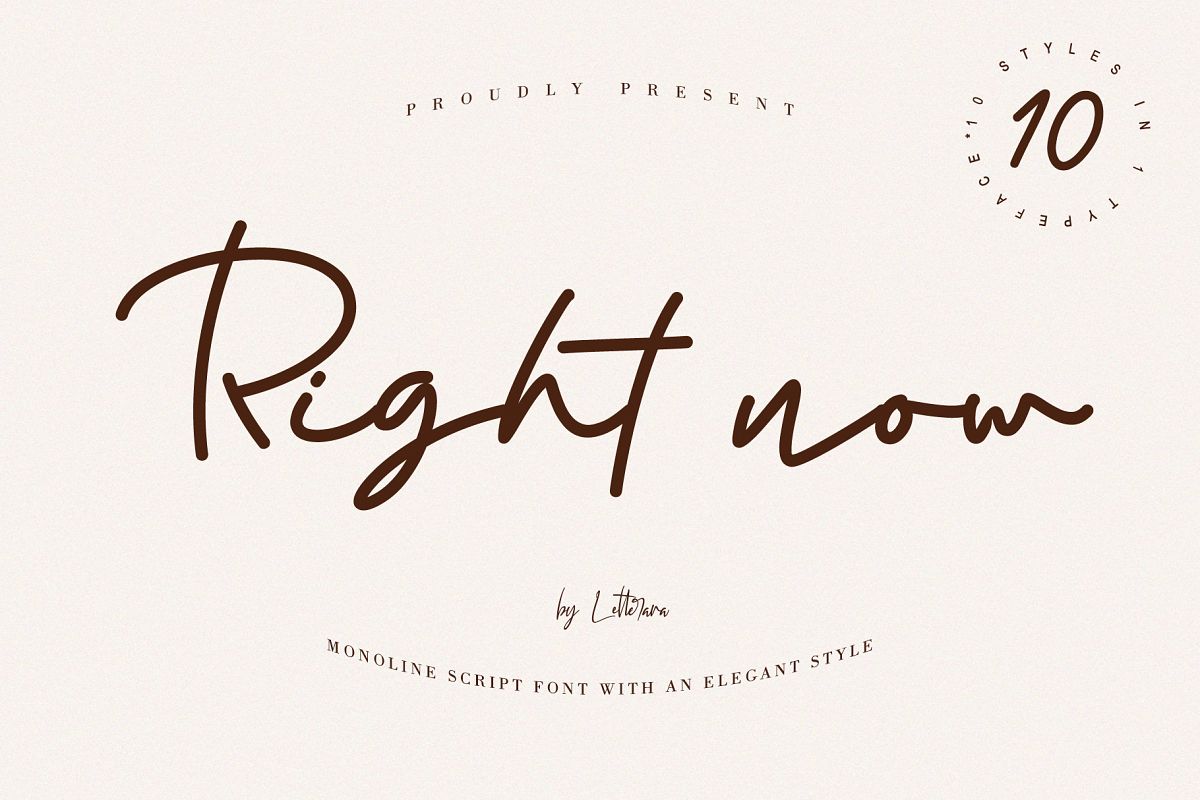
Right Now is monoline script font with an elegant style. Get
inspired by its contemporary style!
This font is
available in 10 fonts in 1 typefaces : Thin, Light, Regular, Semi Bold, Bold,
Thin Italic, Light Italic, Semi Bold Italic, Bold Italic
and most importantly,
Right now is perfect for you.